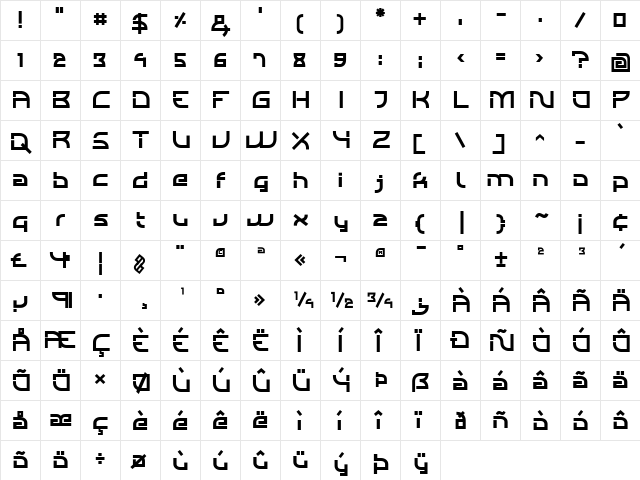
Individigital DemiBold
| Foundry | Myhandwritings Font. Not for release. |
| Designer | RolandHuse |
Design Context for Individigital Typeface
Individigital has a distinctly futuristic character, with geometric precision and clean angles that feel at home in technology, gaming, and sci-fi contexts. The heavy weight commands attention and anchors typographic hierarchies.
Pro Tip: Use Individigital in combination with a neutral sans for body text. Let it define the brand voice in headlines while keeping reading comfortable elsewhere.